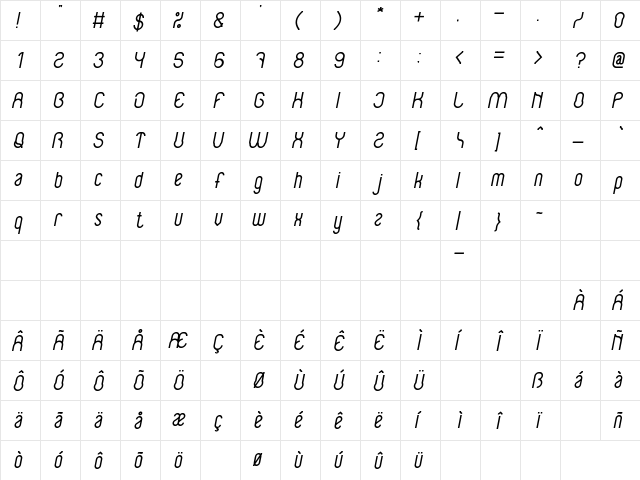
Baby Superhero Italic
Design Context for Baby Superhero Typeface
Baby Superhero takes a measured approach to typography — its balanced proportions and neutral character make it a reliable workhorse for both digital and print work. The slanted form adds forward momentum and visual energy.
Pro Tip: Try Baby Superhero for annotation and caption copy alongside an upright companion — the contrast in angle creates a dynamic but ordered typographic system.